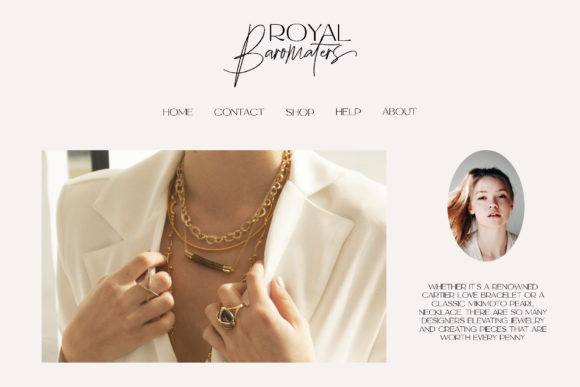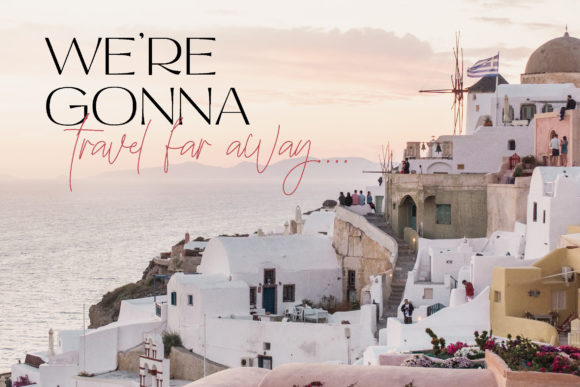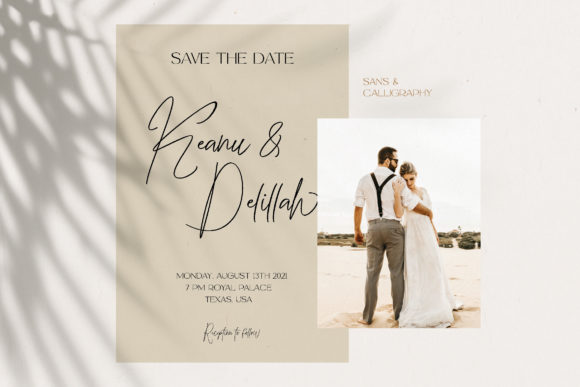
About Beauty Switzerland Font
Beauty Switzerland is an elegant, delicate and distinct script font. It will add a luxury spark to any design project that you wish to create! This font is PUA encoded which means you can access all of the amazing glyphs and ligatures with ease!